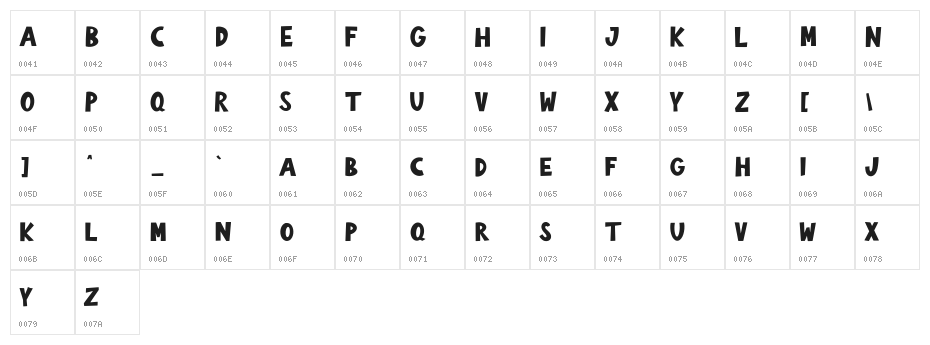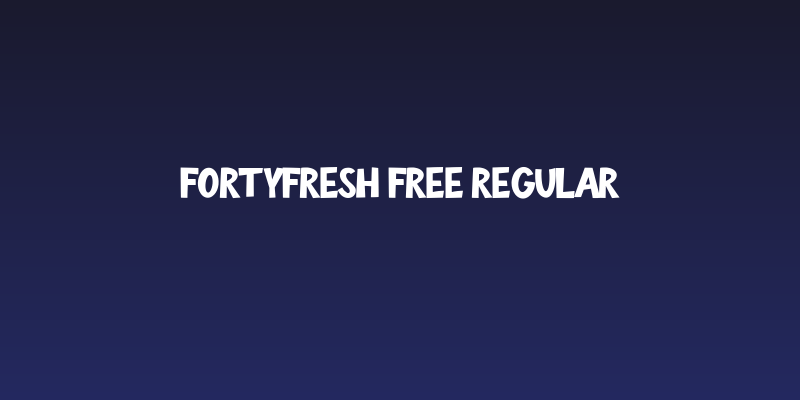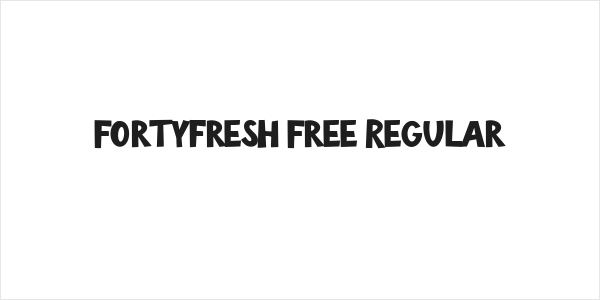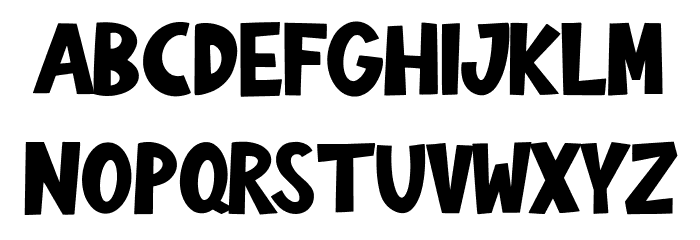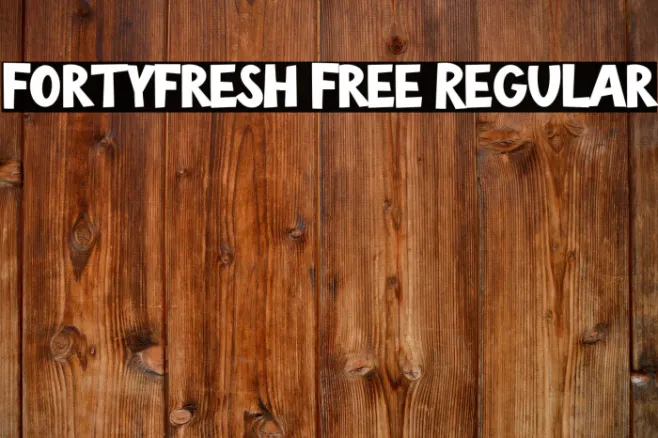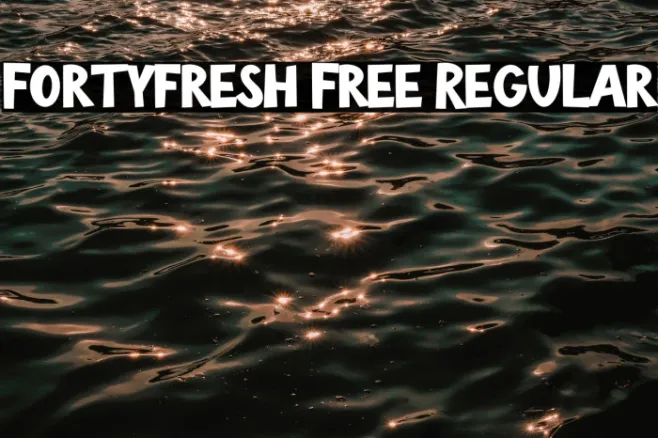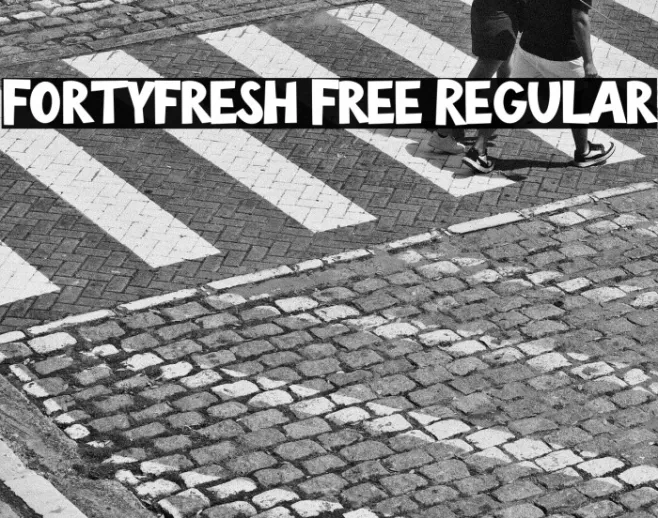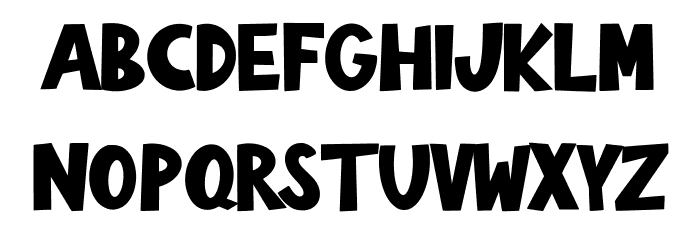
Fortyfresh Free Regular Font
Fortyfresh Free Regular Description
This font features bold, playful characters with a slightly irregular, hand-drawn appearance. The letters are thick and have a whimsical style, making them stand out with a fun and energetic vibe. The strokes are consistent in width, giving the font a cohesive look. The overall design is informal and friendly, suitable for creative and casual applications. The uppercase letters are prominent and well-defined, while the lowercase letters maintain the same lively character. This font is perfect for projects that require a touch of personality and flair.
| Overall Style | Playful, Energetic, Informal |
| Proposed Projects | Ideal for children's books, playful branding, posters, and creative social media graphics. |